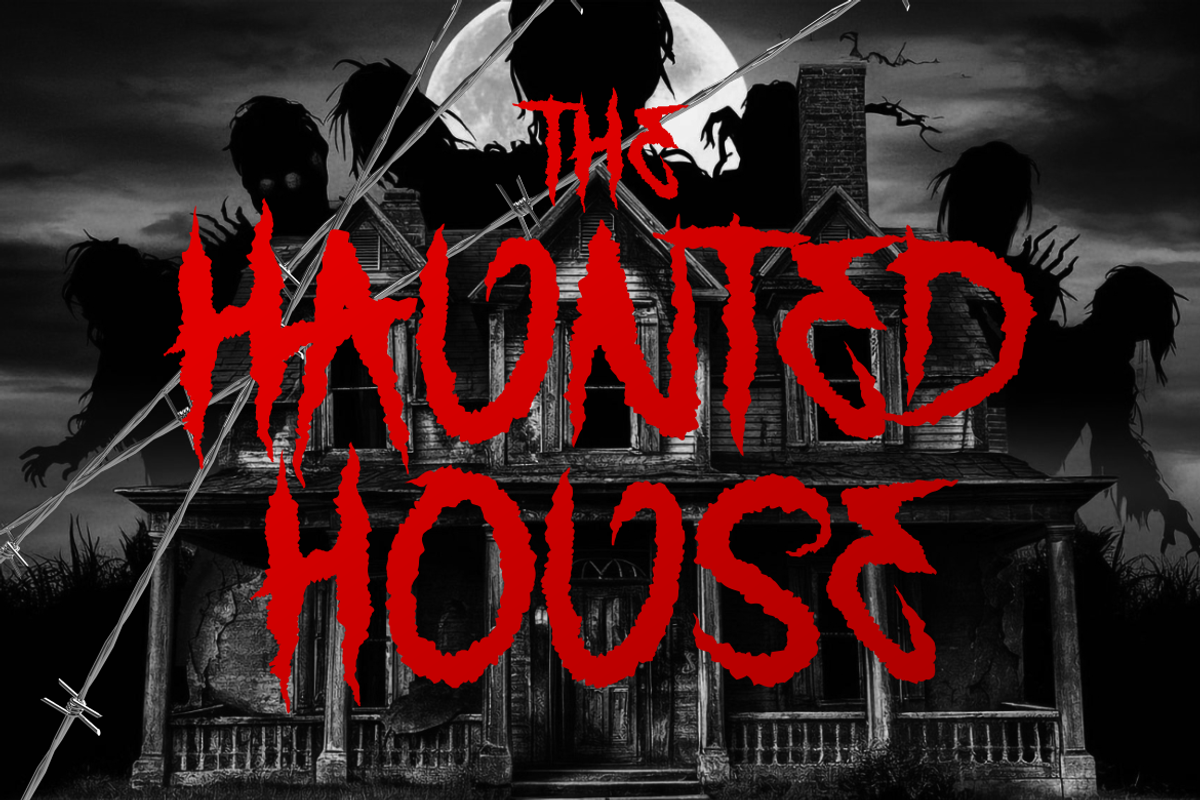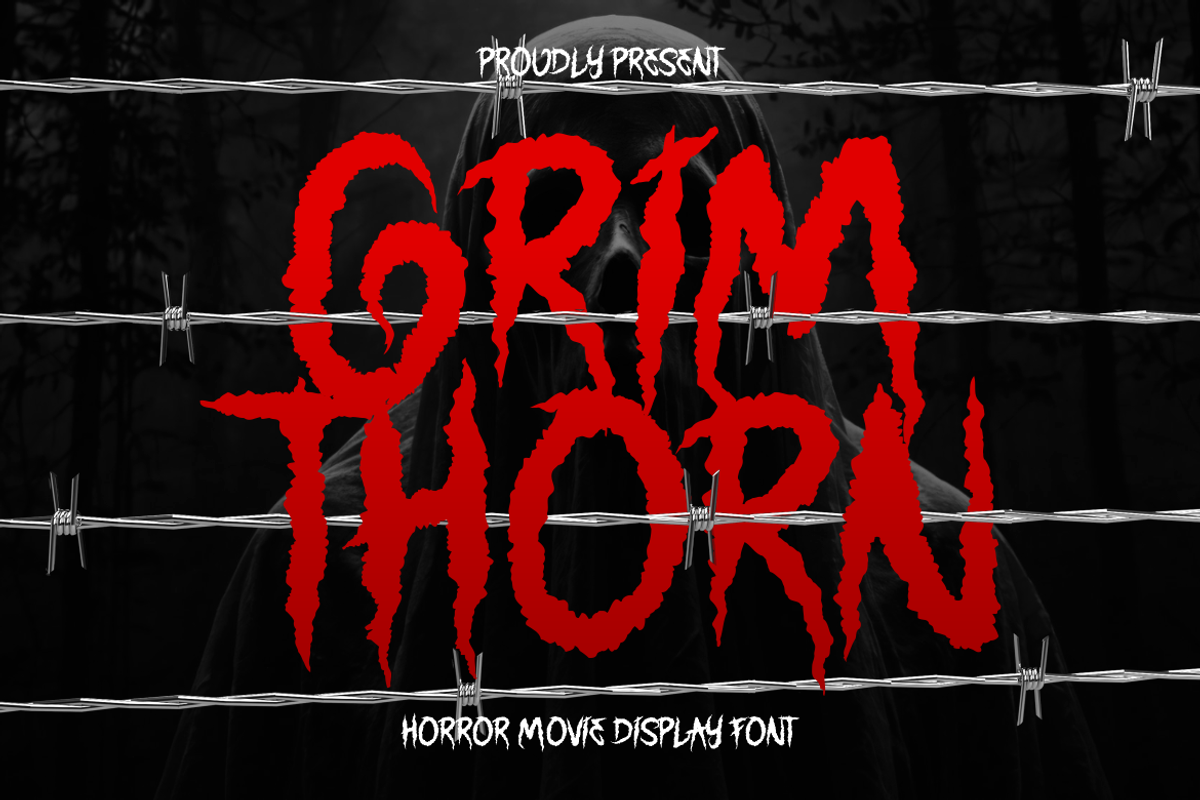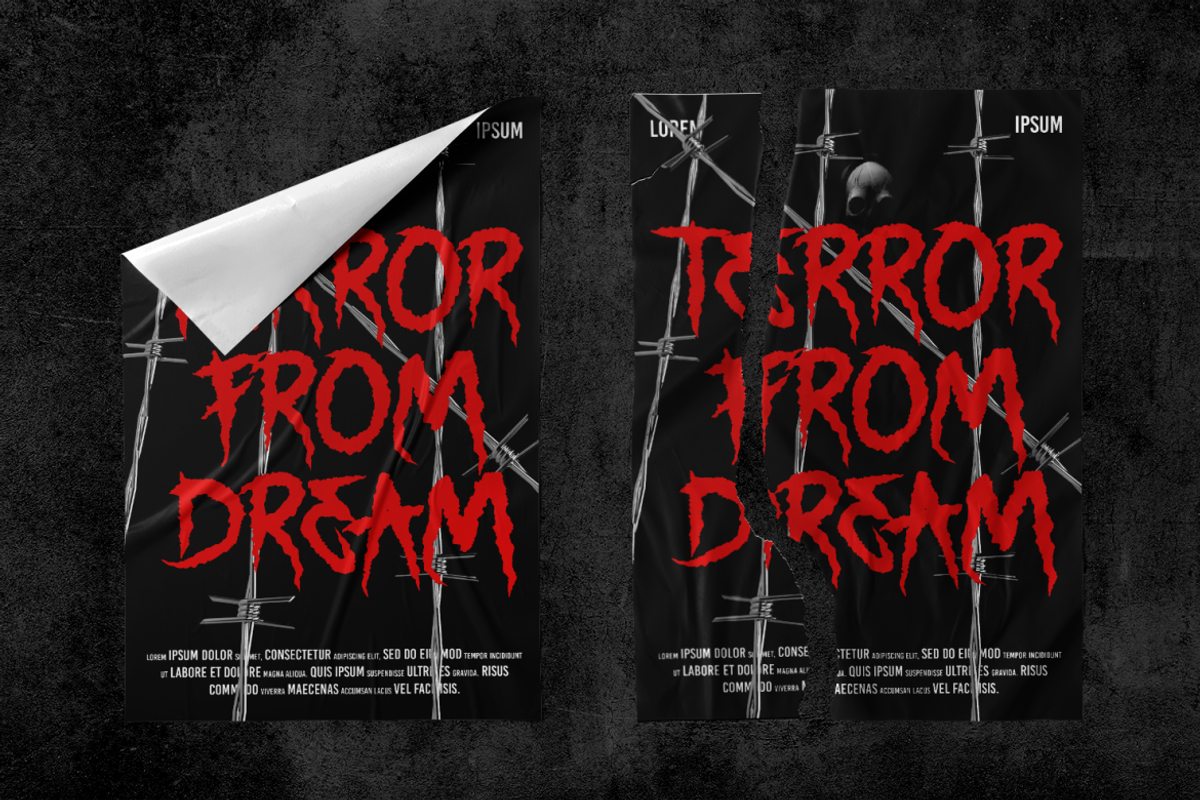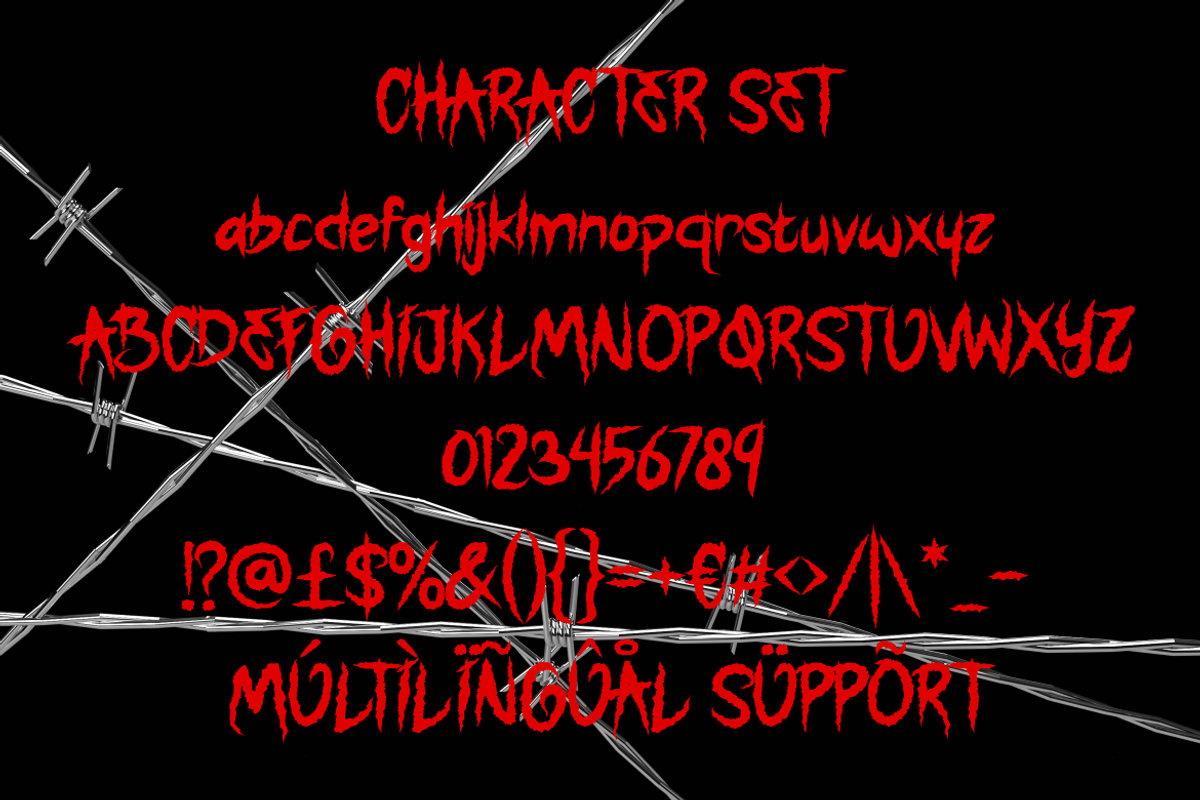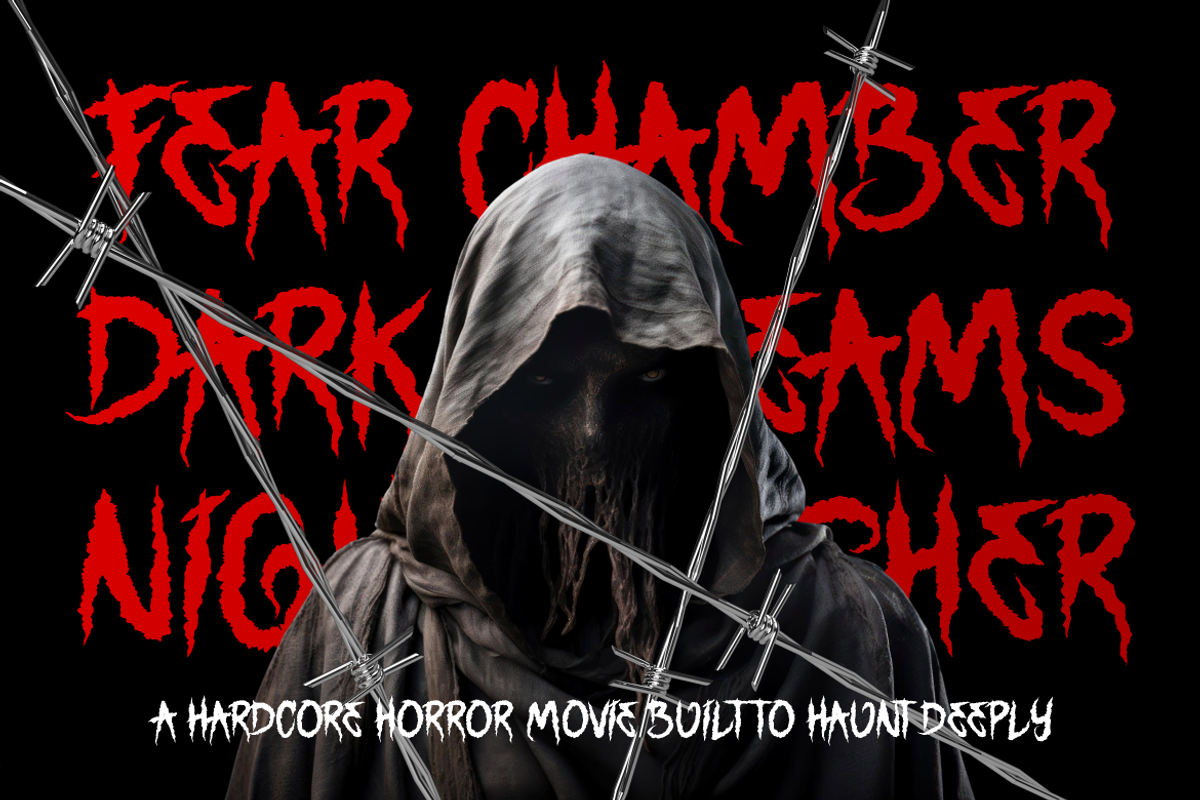
Grimthorn Hardcore Font
Grimthorn Hardcore Font channels raw aggression through sharp, irregular letterforms and intense handcrafted details. The characters feature tall proportions, uneven strokes, jagged edges, rough contours, and thorn-like extensions that create a hostile and unsettling presence. Every letter feels alive with tension, making words appear unpredictable and emotionally charged. The structure blends gothic influence with hardcore energy, while maintaining enough readability for impactful titles and branding. This font captures themes associated with darkness, fear, rebellion, mystery, and underground culture. It works exceptionally well for logos, branding systems, album titles, movie titles, posters, book covers, magazine covers, advertising campaigns, stickers, event promotions, gaming projects, streaming graphics, content creator identities, packaging, invitation cards, greeting cards, and crafting projects. Grimthorn Hardcore Font helps designers create a memorable visual voice that immediately commands attention. Its distressed construction delivers an authentic underground atmosphere while preserving strong headline performance across print and digital media. The dramatic silhouette creates instant recognition and supports projects that require emotional intensity and visual impact.
Grimthorn Hardcore Font serves a wide range of creative industries and entertainment markets. It fits horror movies, thriller productions, supernatural stories, dark fantasy projects, haunted attractions, escape room businesses, gaming brands, streaming channels, music festivals, concert promotions, and independent media studios. Beyond music-related branding, the font also supports businesses that embrace dark themes, alternative culture, mystery experiences, fantasy publishing, collectible products, roleplaying games, creative agencies, and event organizers. The aggressive letter construction strengthens branding for podcasts, video channels, cinematic promotions, seasonal campaigns, and immersive entertainment experiences. Its gothic character works well for Halloween campaigns, horror book releases, paranormal content, creature features, and dramatic storytelling projects. The rough handcrafted appearance brings depth to logos and headlines while maintaining a strong visual identity. Designers can use it for product packaging, promotional materials, advertisements, social media graphics, magazine titles, and large-format displays. The combination of gothic influence, black metal attitude, death metal energy, and hardcore aesthetics makes this font a powerful choice for brands seeking a darker and more memorable personality.